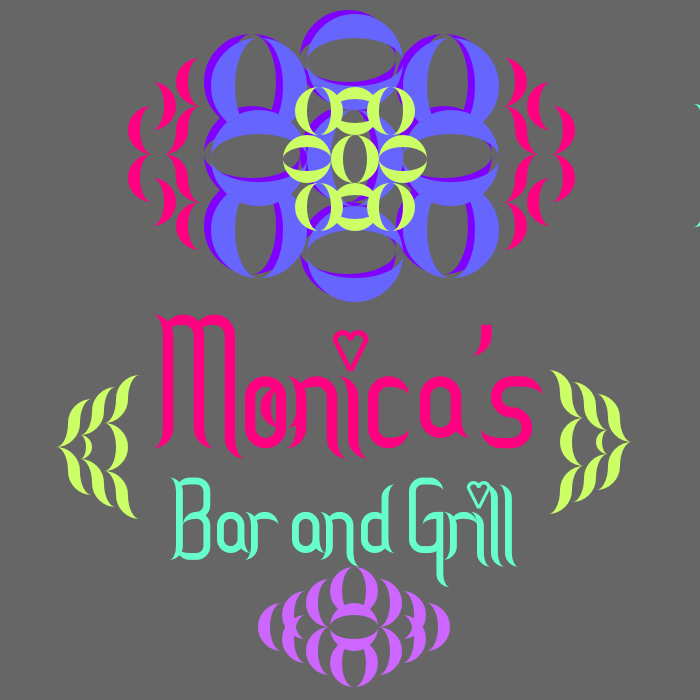
My 2nd entry for the LoveComp. A fancy dingbat font, perfect for upscale business and restaurant logos, or if you want a stylish touch in any official document. Sample coming soon.
Here's the first sample. I think Curvacious works quite well with Love Letter.
A great set of decorative elements! I did spot a heart or two in there ;)
Thanks! I included a couple hearts, to make it a bit more appropriate for the competition.